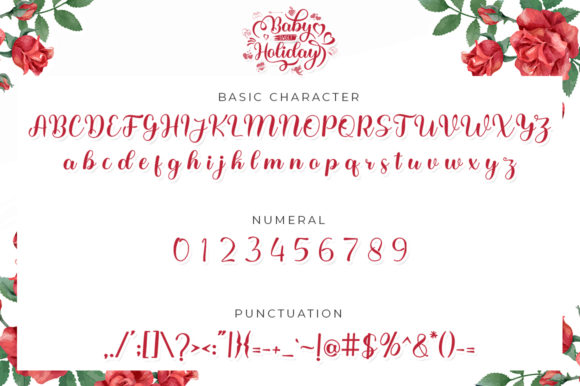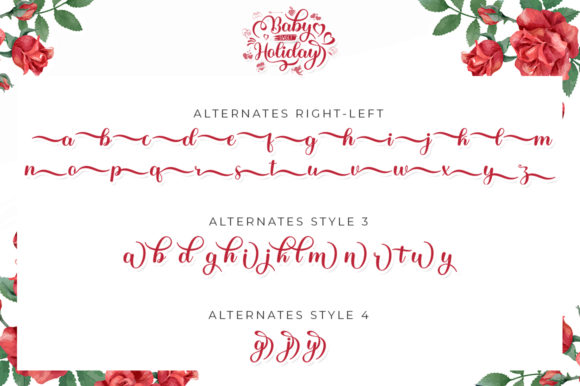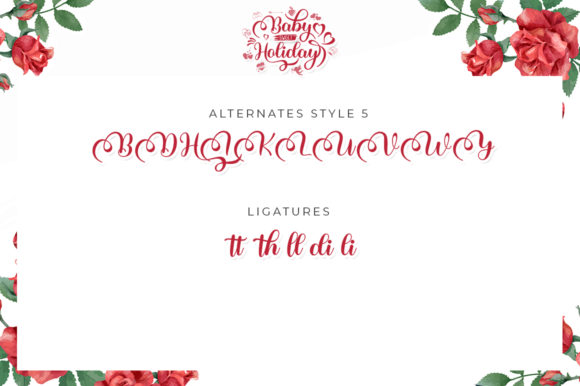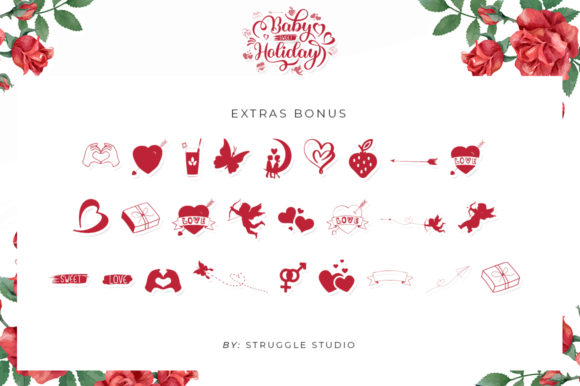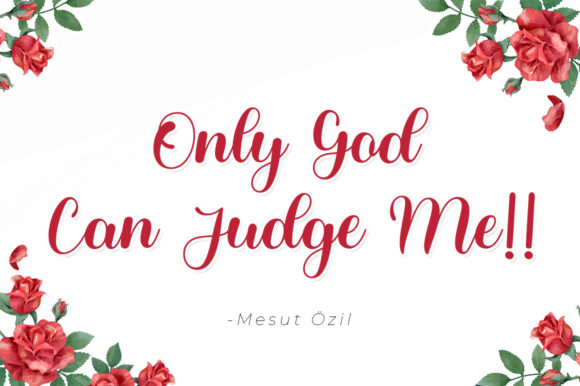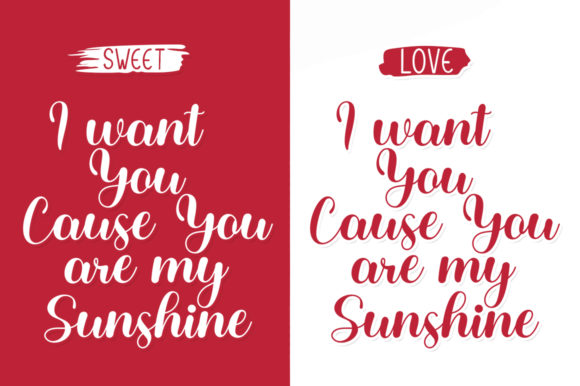
The Perfect Script for Your Next Design Project
Have you ever been working on a design project, pouring your heart and soul into it, only to feel like something is missing? That’s where the magic of the right font comes in. For me, it’s always been about finding that perfect combination of style and elegance to elevate my designs. And that’s exactly what the Baby Sweet Holliday Font delivers.
This stunning script font is designed to add a touch of whimsy and sophistication to any design project. With its clean, thin, and smooth vibe, it’s the perfect addition to any creative endeavor. Whether you’re a seasoned designer or just starting out, the Baby Sweet Holliday Font is sure to be a valuable asset in your toolkit.
Baby Sweet Holiday Font Key Features
- Font Style: Script, handwritten font with a festive touch, ideal for holiday and winter-themed designs.
- Unique Characteristics: Features swashes, flourishes, and decorative elements, adding a touch of elegance and whimsy to designs.
Designer Review: Baby Sweet Holiday Font
Overall, I think Baby Sweet Holiday Font is a cute and charming font that’s perfect for creating a festive atmosphere. ✨ The playful, handwritten style is reminiscent of handwritten notes and adds a personal touch to any design project.
- ✨ Whimsical and festive feel: The font’s playful style is perfect for creating a holiday atmosphere.
- ✨ Good for handwritten-style text: The font’s irregularities and flourishes make it ideal for creating handwritten-style text.
- ✨ Easy to read: Despite its playful style, the font is still easy to read and understand.
- ⚠️ Limited font weights: The font only comes in a few weights, which may limit its versatility in certain design projects.
- ⚠️ May not be suitable for formal projects: The font’s playful style may not be suitable for formal or professional projects.
- ⚠️ May require manual adjustments: The font’s irregularities may require manual adjustments to ensure proper spacing and alignment.
In conclusion, Baby Sweet Holiday Font is a charming and festive font that’s perfect for creating a playful atmosphere. While it may have some limitations, it’s a great choice for designers looking to add a touch of whimsy to their projects.
Tips for Getting the Most Out of Baby Sweet Holliday Font
1. Use the font for decorative text and titles.
2. Pair the font with other cursive or script fonts for a unique look.
3. Experiment with different font sizes and colors to create visual interest.
2. Baby shower invitations and decorations.
3. Holiday cards and gift tags.